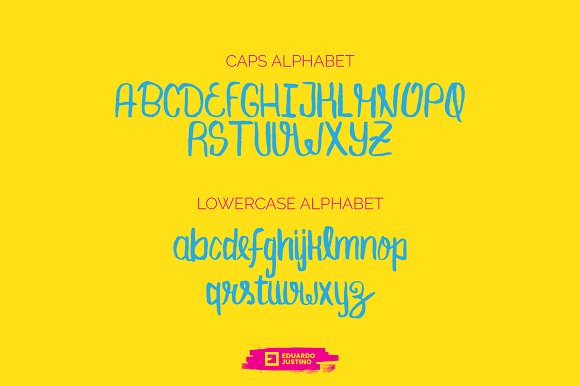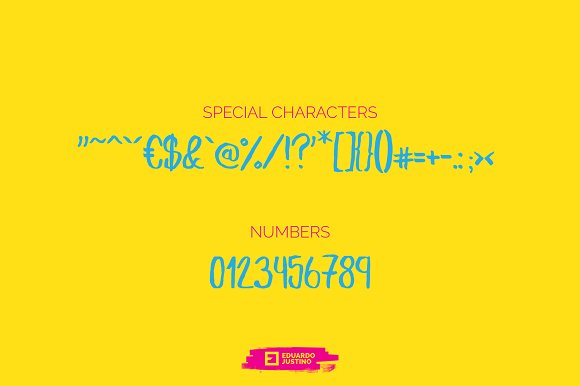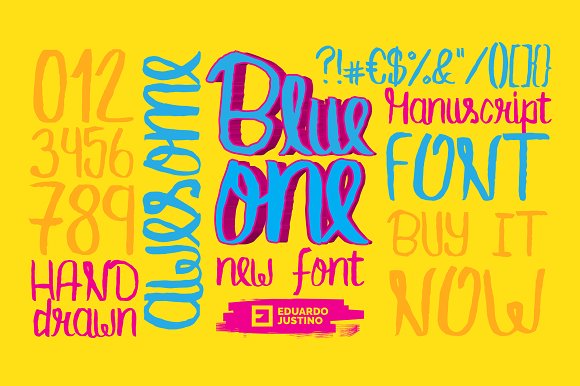
BlueOne
BlueOne Script Font
BlueOne beautifully with many fonts and can be used in a variety of different scenarios! Perfect for many design projects such as logo design, branding, blog graphics, stylizing quotes, wedding stationery, art prints, collateral design, packaging, social media, and so on.